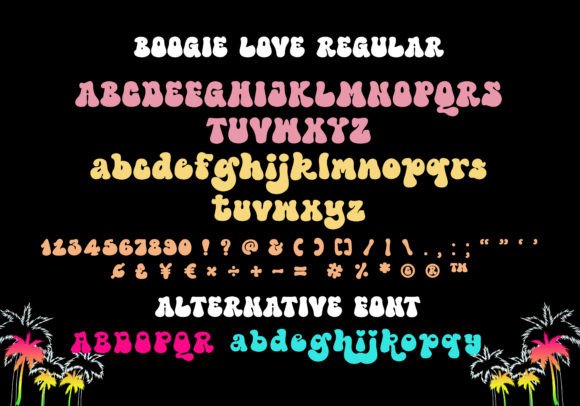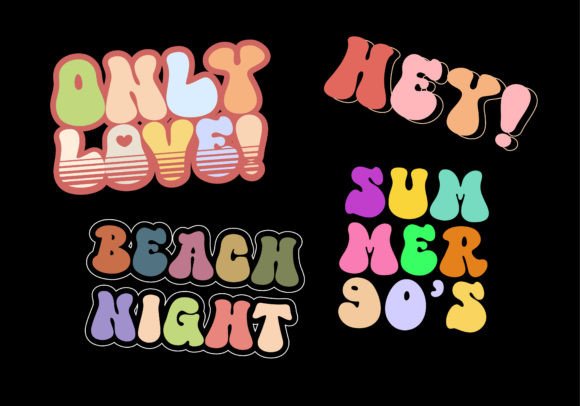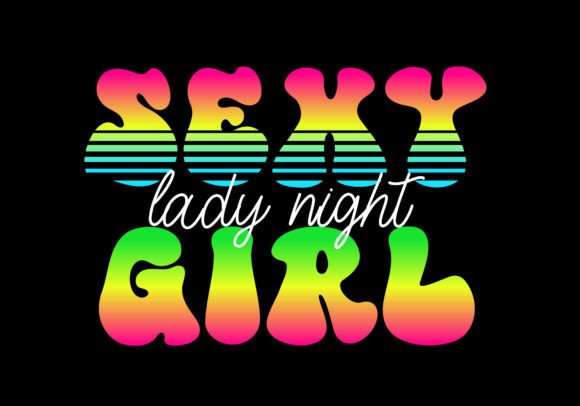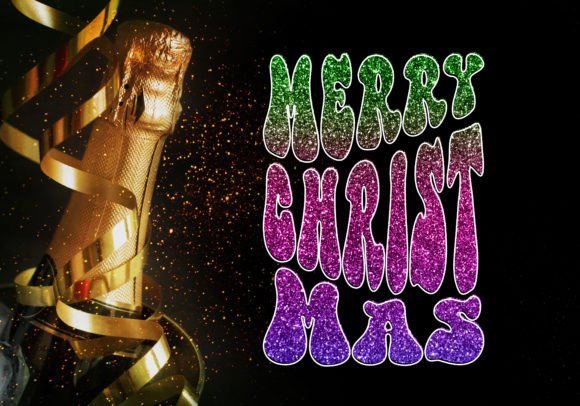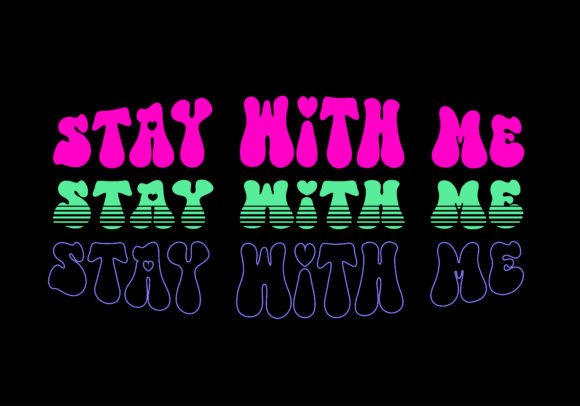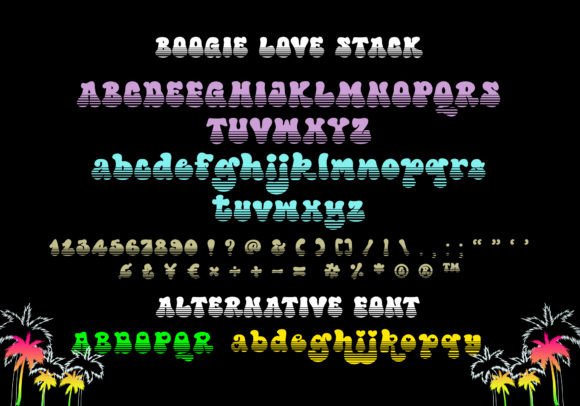
Get Ready to Groove with the Boogie Love Font
Have you ever been working on a design project and suddenly, out of nowhere, the perfect font pops into your head? It’s like a creative lightbulb moment, and you can’t wait to bring your idea to life. For me, that moment happened when I stumbled upon the Boogie Love Font – a cool, funky display font that screams retro vibes.
This stylish font is inspired by the iconic typography of the 70s and 80s, guaranteed to grab attention and add a special touch to any design project. Whether you’re working on a music festival poster, a fashion brand campaign, or a fun blog post, the Boogie Love Font is the perfect addition to make your design stand out.
- Unique Characteristics: Distinctive, hand-drawn feel with bold lines and playful flourishes, perfect for creating eye-catching headlines and titles.
- Font Family: Boogie Love Font comes in three weights: Regular, Bold, and Italic, providing flexibility for a range of design applications.
- Language Support: Supports a wide range of languages, including Latin, Cyrillic, and Greek alphabets, making it a versatile choice for global designs.
I recently had the chance to work with the Boogie Love Font, and I have to say, it’s a unique and fun addition to any project. ✨ The font’s playful, retro vibe immediately caught my attention, and I love how it can add a touch of nostalgia to any design.
One of the things that really works well with this font is its versatility. ✨ It’s perfect for projects that require a funky, laid-back feel, and it’s also great for titles and headings that need to stand out. The font’s bold lines and rounded edges make it easy to read, even at smaller sizes.
Here are a few things that I like about the Boogie Love Font:
- Fun, retro vibe that’s perfect for nostalgic projects
- Highly versatile and can be used for a variety of projects
- Easily readable, even at smaller sizes
- The font may not be suitable for projects that require a more professional or formal tone
- The font’s bold lines may not be suitable for projects that require a more subtle or delicate look
Overall, I think the Boogie Love Font is a great addition to any designer’s toolkit. It’s perfect for projects that require a fun, playful vibe, and it’s easy to use and customize. ⚠️ Just be aware of its limitations, and use it accordingly.
Some common use cases for Boogie Love Font include:
– Adding a playful touch to children’s books or educational materials
– Creating eye-catching headlines and titles
– Designing music-related materials, such as concert posters or album artwork
– Adding a fun and casual feel to social media graphics and ads